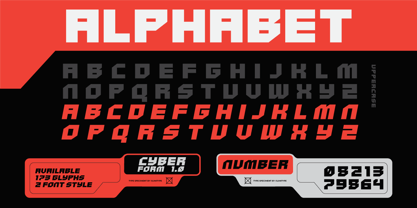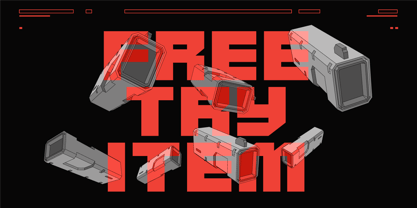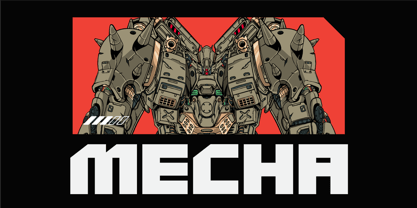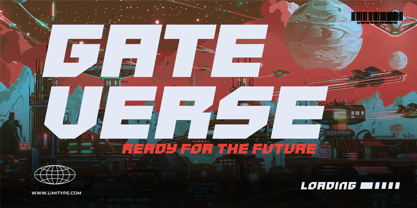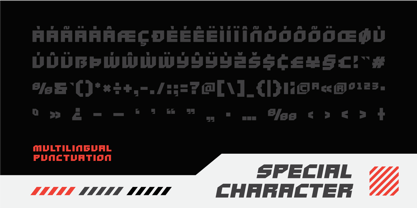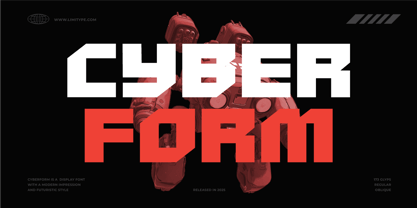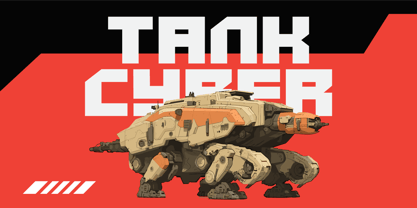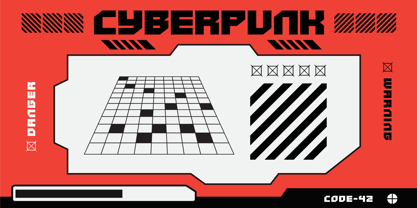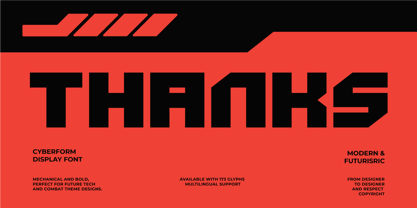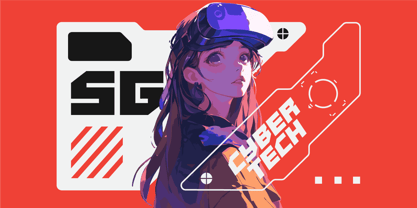
Cyberform
by limitype
The Cyberform Font Family was designed by Muhammad Muammar, Furqan Sudirman and published by limitype. Cyberform contains 2 styles and family package options.
Cyberform is a bold display font with a futuristic look, perfect for designs that need a strong and modern presence. It works especially well for headlines or layouts that require large, impactful text with a futuristic style.
Cyberform available with:
- Allcaps
- Oblique
- Number
- Symbol
- Multilingual